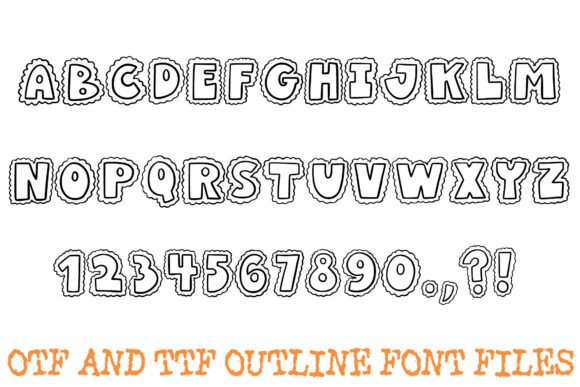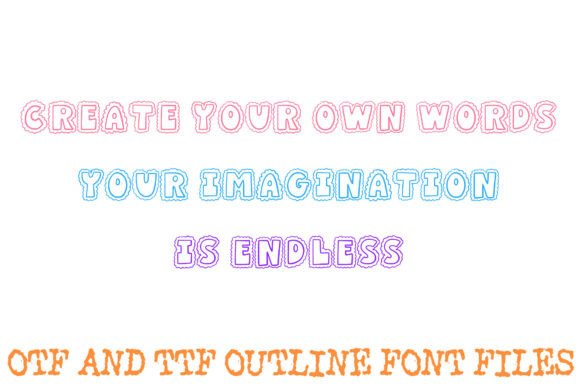
Float Away with the Bubble Cloud Font!
Are you looking for a font that adds a touch of whimsy and playfulness to your designs? Look no further than the Bubble Cloud Font! This hand-drawn display alphabet features bold, bubbly characters encased in a charming, scalloped cloud-like border that’s sure to make your projects stand out.
The Perfect Choice for Whimsical Designs
The Bubble Cloud Font is perfect for a variety of creative projects, including whimsical children’s branding, dreamy party invitations, nursery posters, and any design that needs a soft, playful touch. The unique, layered look of each character ensures that your headlines grab attention while maintaining a soft, artisan feel.
Why Your Designs Will Stand Out
So, what makes the Bubble Cloud Font so special? Here are just a few reasons why your designs will stand out:
- Scalloped Cloud Details: Every character features a unique, wavy border that gives them a distinct, fluffy personality. This attention to detail sets the Bubble Cloud Font apart from other fonts and adds a touch of magic to your designs.
- Bubbly Cartoon Silhouette: The thick, rounded block style ensures maximum readability for headlines and logos, even with the detailed outlines. This makes the Bubble Cloud Font perfect for designs that need to be both visually appealing and easy to read.
- Versatile Artisan Feel: The hand-drawn aesthetic gives your text a personal, artisan feel that’s perfect for a variety of creative projects. Whether you’re designing for a cozy baby announcement, quirky classroom decor, or creative digital scrapbooking, the Bubble Cloud Font delivers a professional, whimsical look that stands out.
The Bubble Cloud Font is versatile and can be used for a wide range of projects, including:
- Children’s Branding: Add a touch of whimsy to your children’s branding with the Bubble Cloud Font. Perfect for logos, packaging, and marketing materials.
- Party Invitations: Create dreamy party invitations that will delight your guests with the Bubble Cloud Font. Perfect for birthday parties, baby showers, and more.
- Nursery Posters: Add a touch of sweetness to your nursery posters with the Bubble Cloud Font. Perfect for baby announcements, nursery decor, and more.
- Digital Scrapbooking: Create beautiful digital scrapbooking pages with the Bubble Cloud Font. Perfect for preserving memories and telling stories.
Tips for Using the Bubble Cloud Font
Here are a few tips for getting the most out of the Bubble Cloud Font:
- Use it as a Headline Font: The Bubble Cloud Font is perfect for headlines and titles. Use it to add a touch of whimsy to your designs and draw attention to your message.
- Pair it with Other Fonts: The Bubble Cloud Font pairs well with a variety of other fonts. Try pairing it with a simple sans-serif font for a bold, yet elegant look.
- Experiment with Colors: The Bubble Cloud Font looks great in a variety of colors. Experiment with different colors and combinations to find the perfect look for your design.
The Bubble Cloud Font is a unique and versatile font that’s perfect for a wide range of creative projects. With its scalloped cloud details, bubbly cartoon silhouette, and versatile artisan feel, it’s sure to add a touch of whimsy and playfulness to your designs. Whether you’re a designer, crafter, or DIY enthusiast, the Bubble Cloud Font is a great choice for anyone looking to add a little magic to their projects.